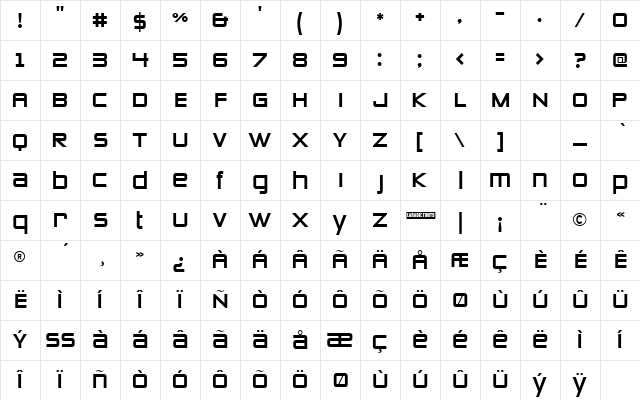
Zeroes Two Regular
Design Context for Zeroes Two
Zeroes Two is a composed and adaptable typeface that performs quietly and consistently across a wide range of design contexts.